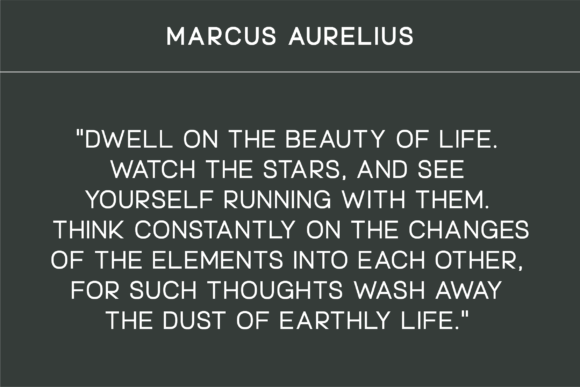
Introduction to Proestin Font
Have you ever stared at a blank page, searching for the perfect font to bring your creative project to life? The cursor blinks, and the words just won’t come together. It’s in these moments that the right design resource can be a game-changer. For designers and content creators, finding a font that exudes elegance, modernity, and versatility can be a daunting task. That’s where the Proestin Font comes in – a meticulously crafted font family that offers a wide range of creative possibilities.
With its five distinct weights – thin, light, regular, black, and bold – Proestin Font provides the perfect canvas for designers to express themselves. Whether you’re aiming for a subtle and delicate touch or a bold and impactful statement, this font family’s seamless blend of sophistication and contemporary style ensures your projects will shine with distinction. And the best part? It’s available for free download, making it an accessible high-quality design resource for creatives of all levels.
Key Features of Proestin Font
- High-quality design resource with a unique, modern aesthetic, perfect for creative projects.
- Features a clean and elegant design, making it suitable for a wide range of applications, from branding to publishing.
- Includes a comprehensive character set, covering a wide range of languages and special characters.
Honest Review: Proestin Font
- ✨ The font’s high quality and clean design make it suitable for a wide range of applications, from headings to body text.
- ✨ I appreciated the large character set, which included a variety of languages and special characters.
- ✨ The font’s modern aesthetic fits well with contemporary design trends.
However, I did encounter a few limitations with the Proestin Font:
- ⚠️ The font may not be suitable for very small text sizes, as the letterforms can become somewhat pixelated.
- ⚠️ Some users may find the font’s design to be too minimalist, lacking the nuance of more complex typography.
Overall, I’m pleased with the Proestin Font, and I would recommend it to designers working on creative projects that require a clean, modern look. While it may not be perfect, it’s a solid addition to any design resource library.
Common Use Cases for Proestin Font